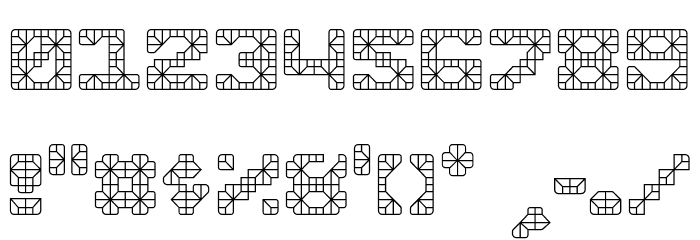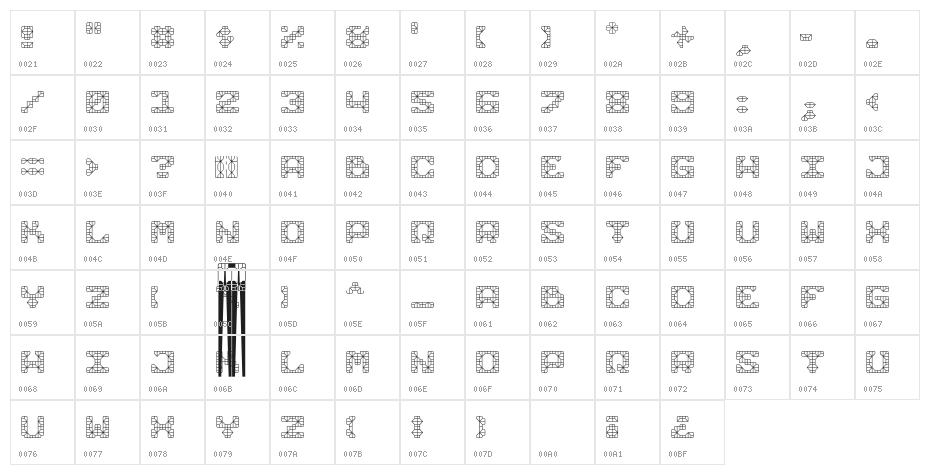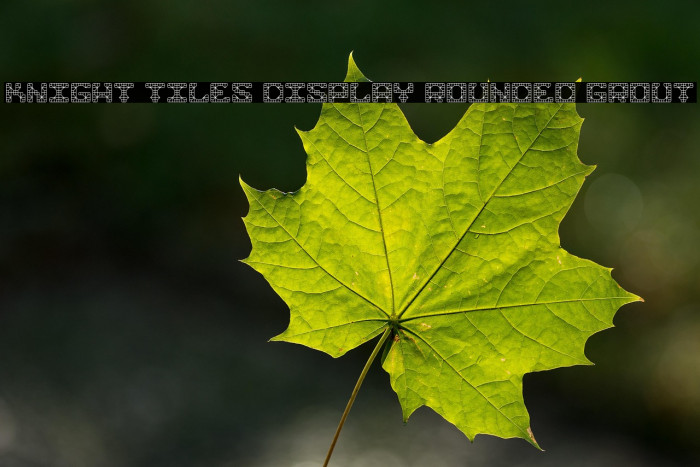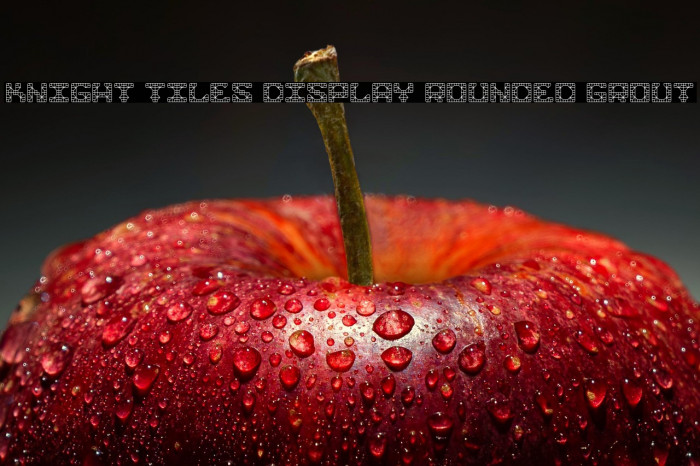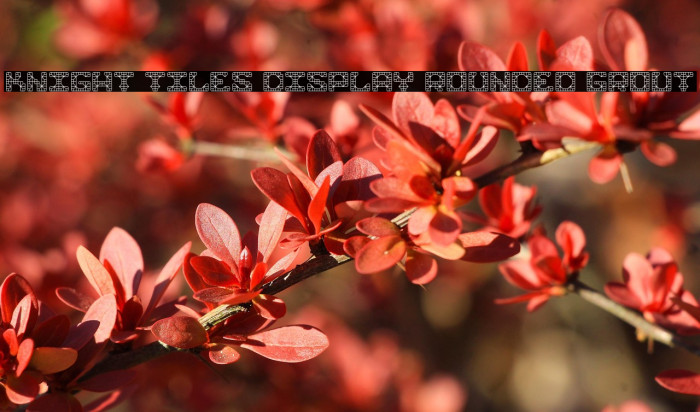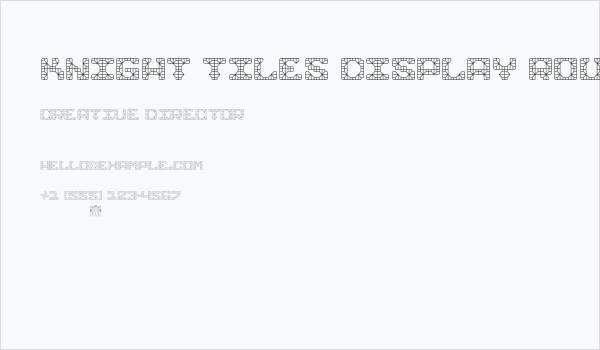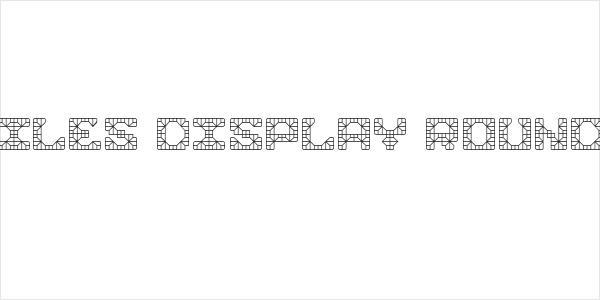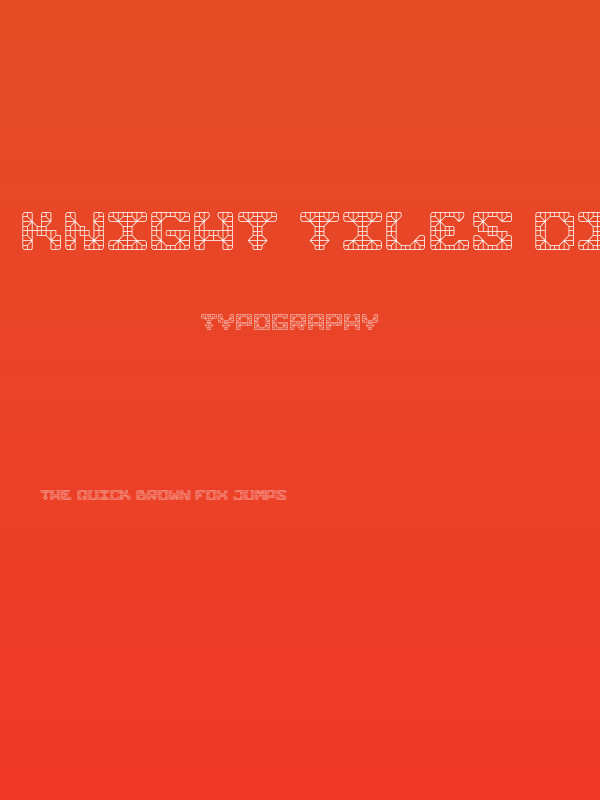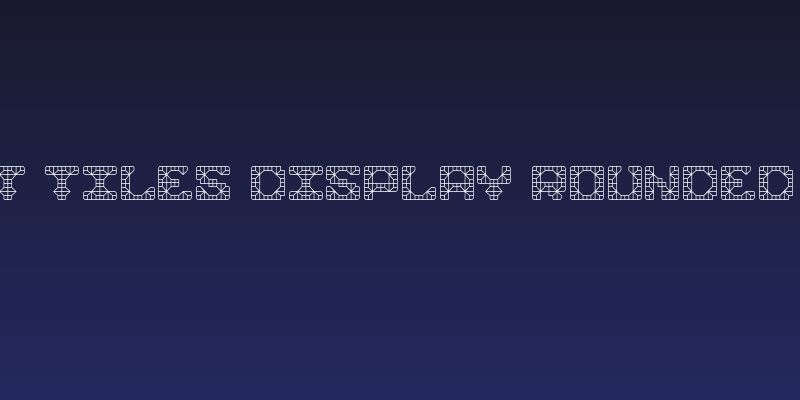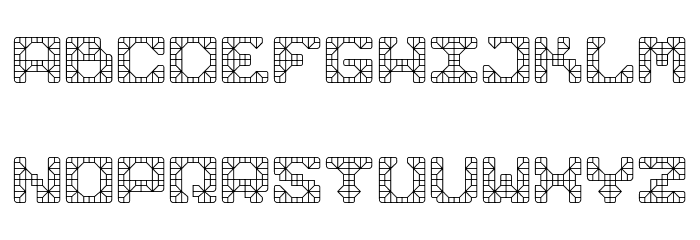
Knight Tiles Display Rounded Grout Font
Knight Tiles Display Rounded Grout Description
This font features a unique, geometric design that resembles a mosaic or tile pattern. Each character is constructed with a series of interconnected lines and shapes, creating a visually striking and intricate appearance. The rounded edges add a touch of softness to the otherwise angular design, making it both bold and approachable. The characters are evenly spaced, ensuring readability while maintaining the decorative nature of the font. This style is particularly eye-catching and suitable for projects that require a distinctive and artistic touch.
| Use Case | Logos, Posters, Artistic Displays |
| Proposed Projects | Ideal for branding, posters, and artistic projects that require a unique and decorative typeface. |